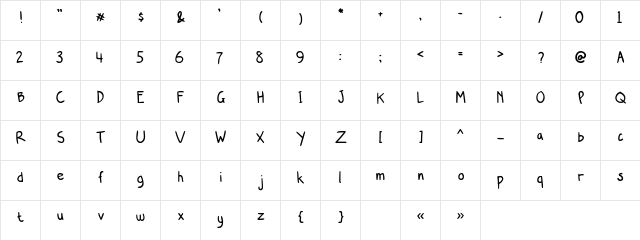
My Kids Handwritten-Basic Regular
Design Context for My Kids Handwritten-Basic Typeface
My Kids Handwritten-Basic has an approachable, lighthearted character — its loose, expressive forms are well-suited to children's content, casual branding, and fun-first design.
Font Pairing: Pairs well with a rounded or humanist sans for body copy, maintaining the friendly tone without relying on My Kids Handwritten-Basic to carry extended reading.
Pro Tip: Avoid using My Kids Handwritten-Basic for long passages of text — it works best for headlines, labels, and short calls to action.